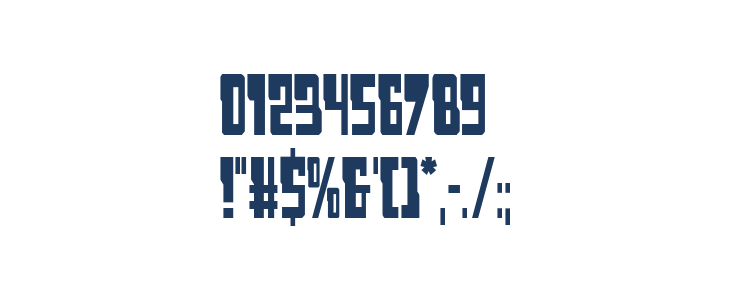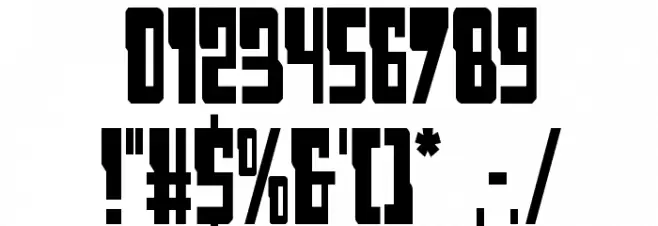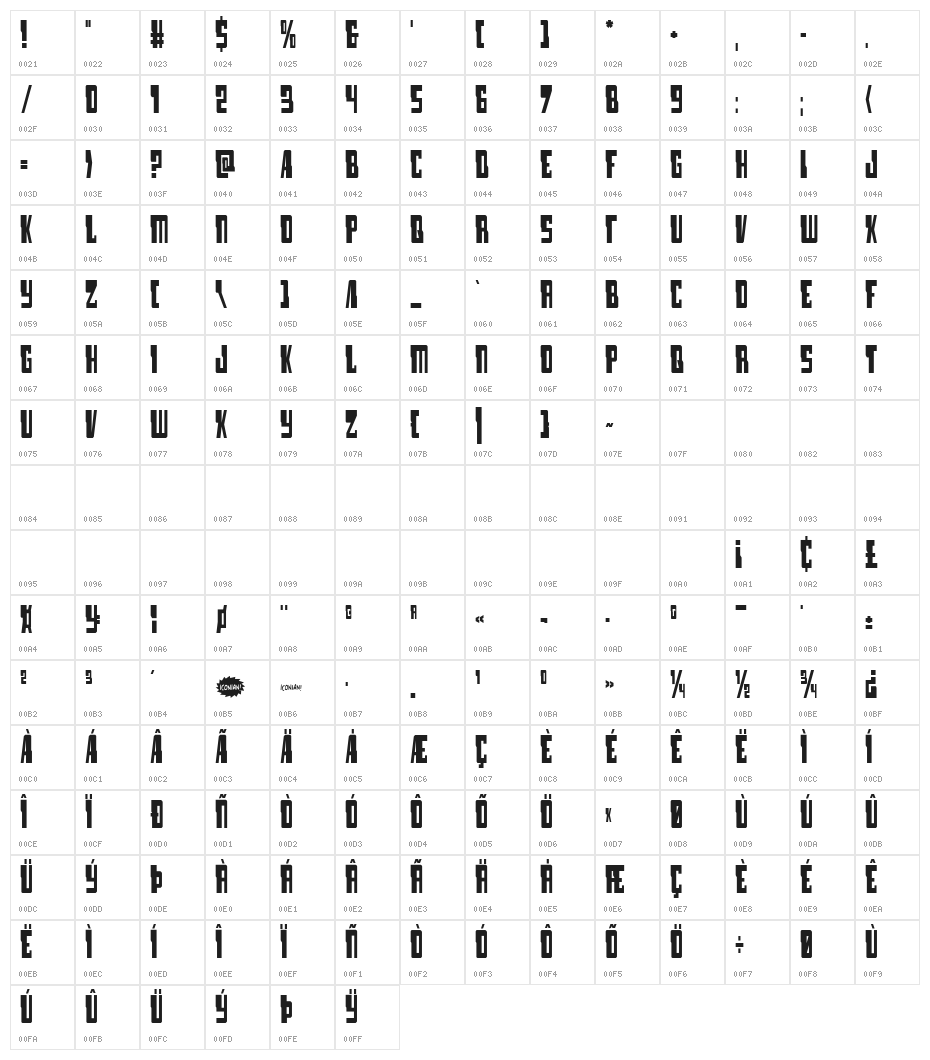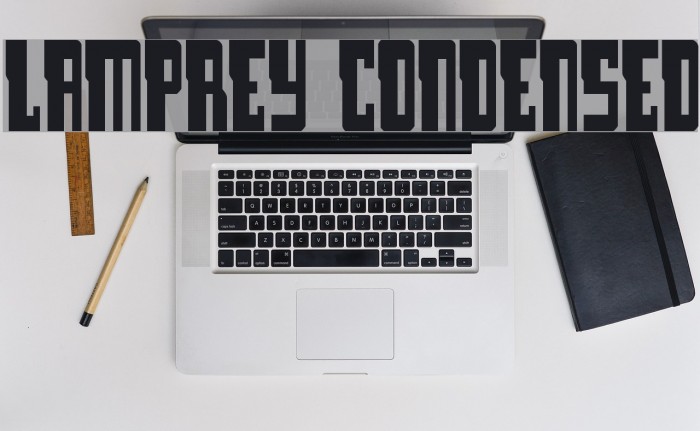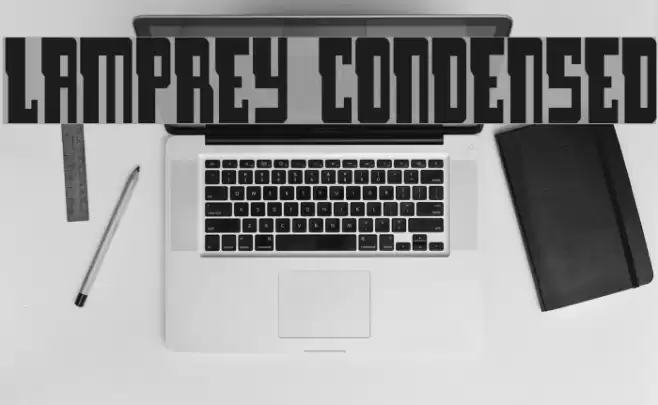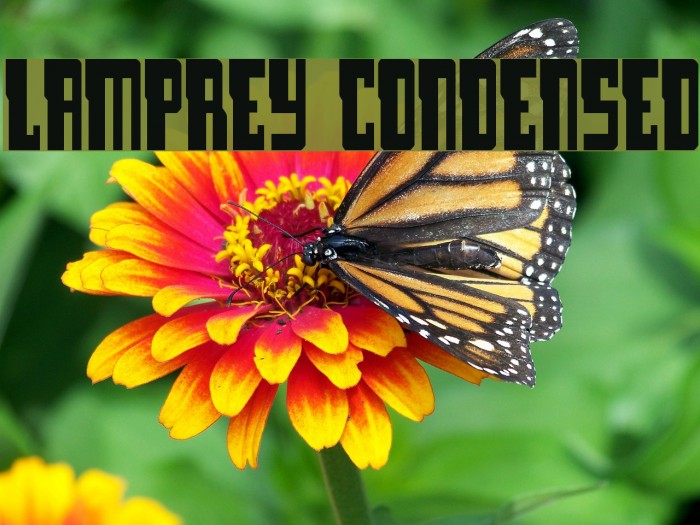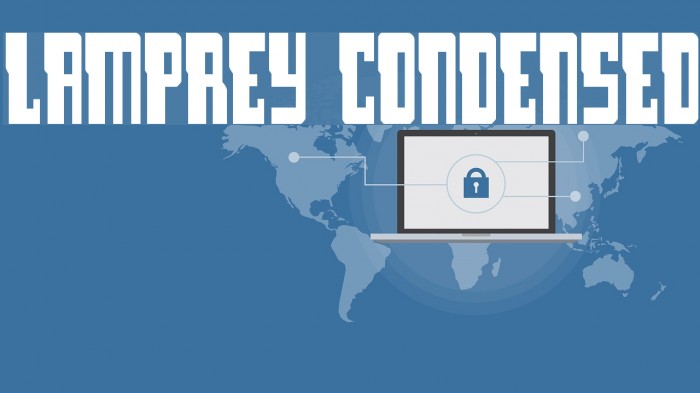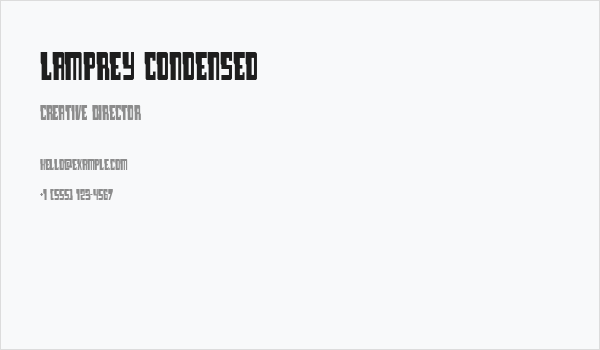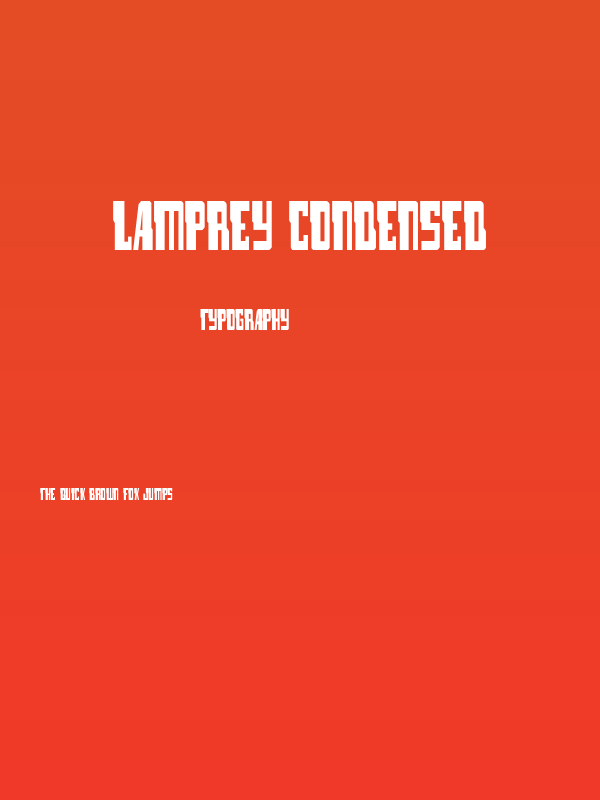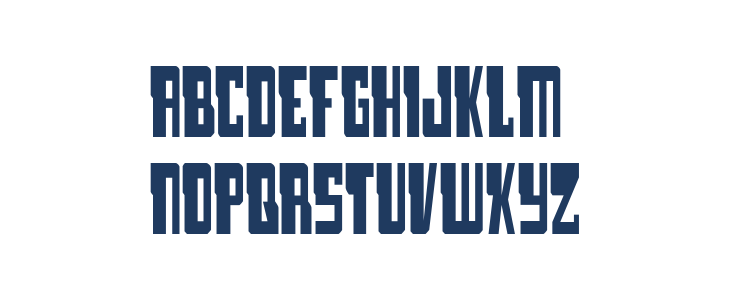
Lamprey Condensed Font
Lamprey Condensed Description
This font exhibits a bold and striking appearance with its condensed letterforms. The characters are designed with a strong geometric influence, featuring sharp angles and clean lines that create a sense of power and modernity. The uppercase and lowercase letters maintain a consistent height, contributing to its uniform look. The numerals and special characters are crafted to match the boldness of the alphabet, ensuring a cohesive visual style. This font's unique design makes it stand out, ideal for projects that require a strong visual impact.